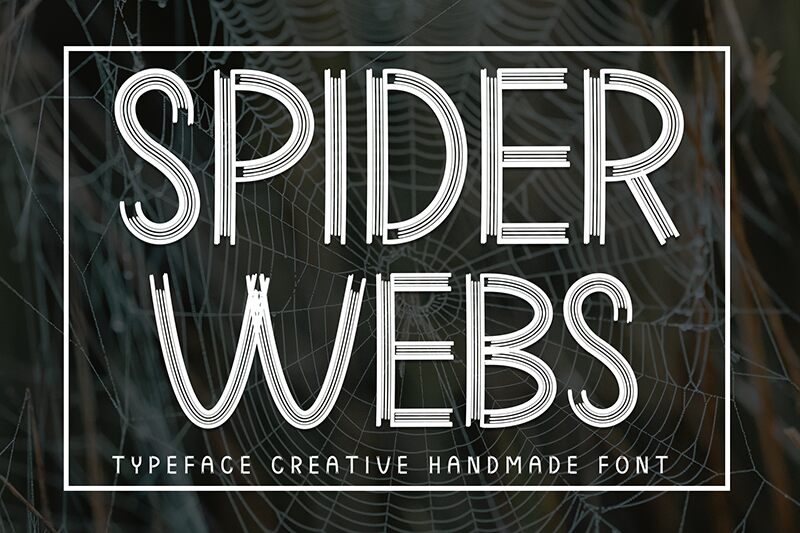
Spider Webs font by Andi Moz is a free brush font with a sleek, modern, and intricate appearance. This decorative typeface draws artistic and geometric inspiration from art deco influences. Its layered and creative design makes it suitable in a wide variety of contemporary applications including branding, logos, and digital media.
This artistic typeface is ideal for fashion design, advertising, signage, and packaging as well. It can be used for creating posters that communicate a modern feel or even in stationery designs. Achieve a striking look in online use such as in website titles, articles, or blog posts.
This is a sweet and friendly handwritten display font. Cute and fun, this font is ideal for writing wedding invitations, cards, or any other design that requires a playful touch.